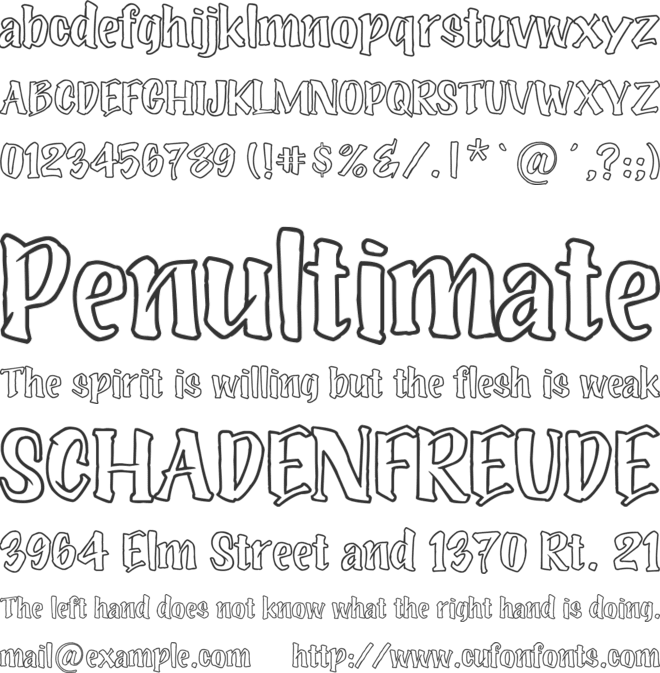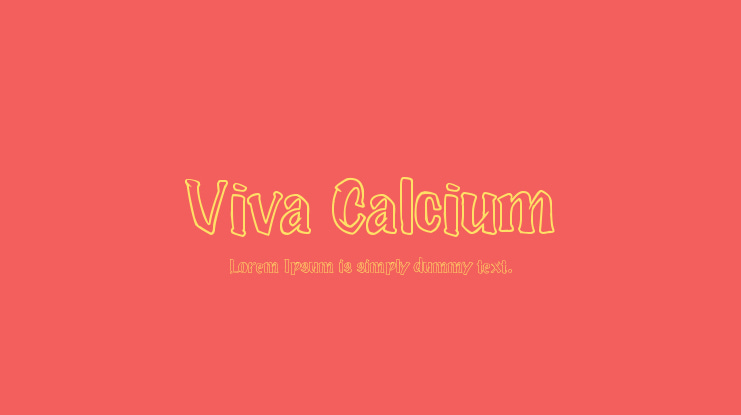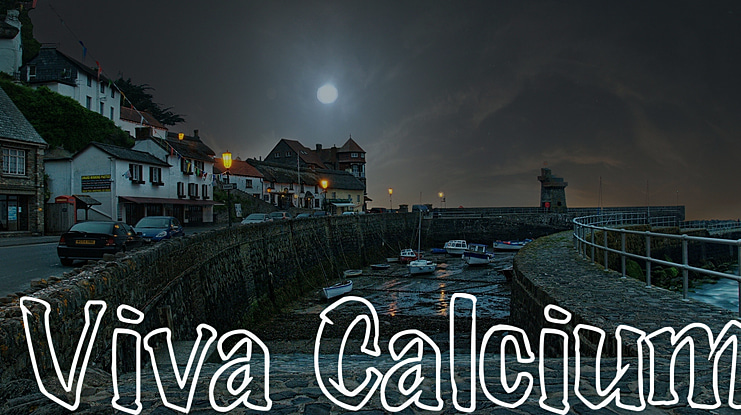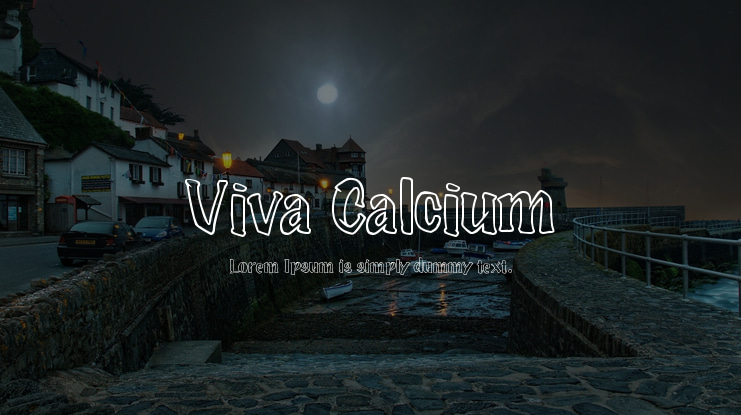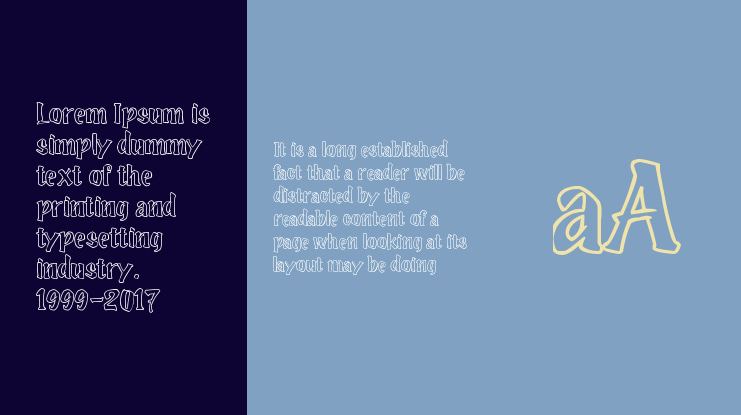
Viva Calcium Font
Let me introducing VIVA CALCIUM natural handcrafted font, with two variant, solid and line, and multilingual character. Try this perfect for your project. I hope you like this. Feel free to comment or email me. Thank you
Viva Calcium font preview